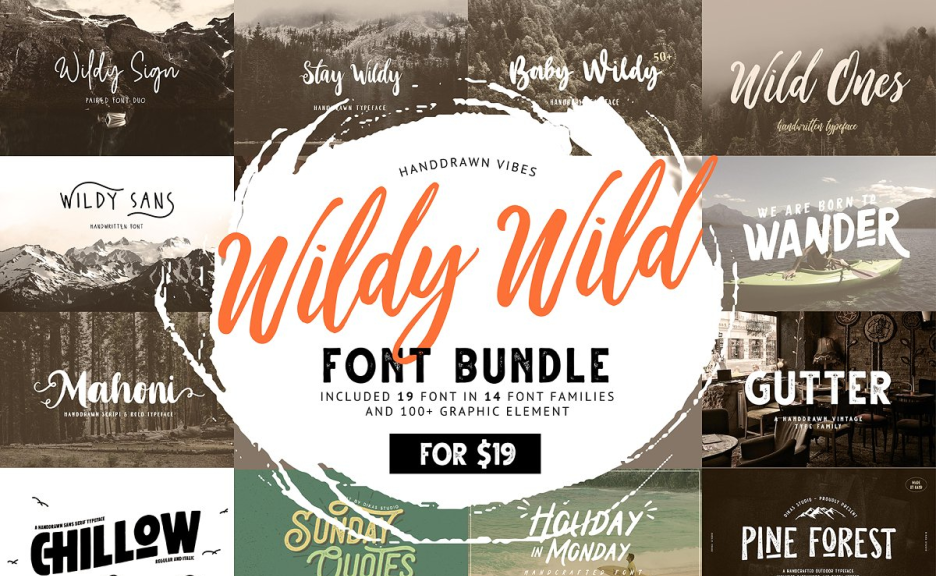
Wildy Wild Font Bundle!
The Wildy Wild Font Bundle offers a unique collection of fonts that capture a playful and adventurous spirit. This bundle includes a variety of font styles, from bold and expressive to elegant and refined, making it perfect for a wide range of design projects.
• Multiple font styles and weights
• Includes decorative and display fonts
• Styles: Serif, Sans-serif, Script, Display
• Weights: Light, Regular, Bold
• Great for creating eye-catching headlines and posters
• Perfect for web design and user interfaces